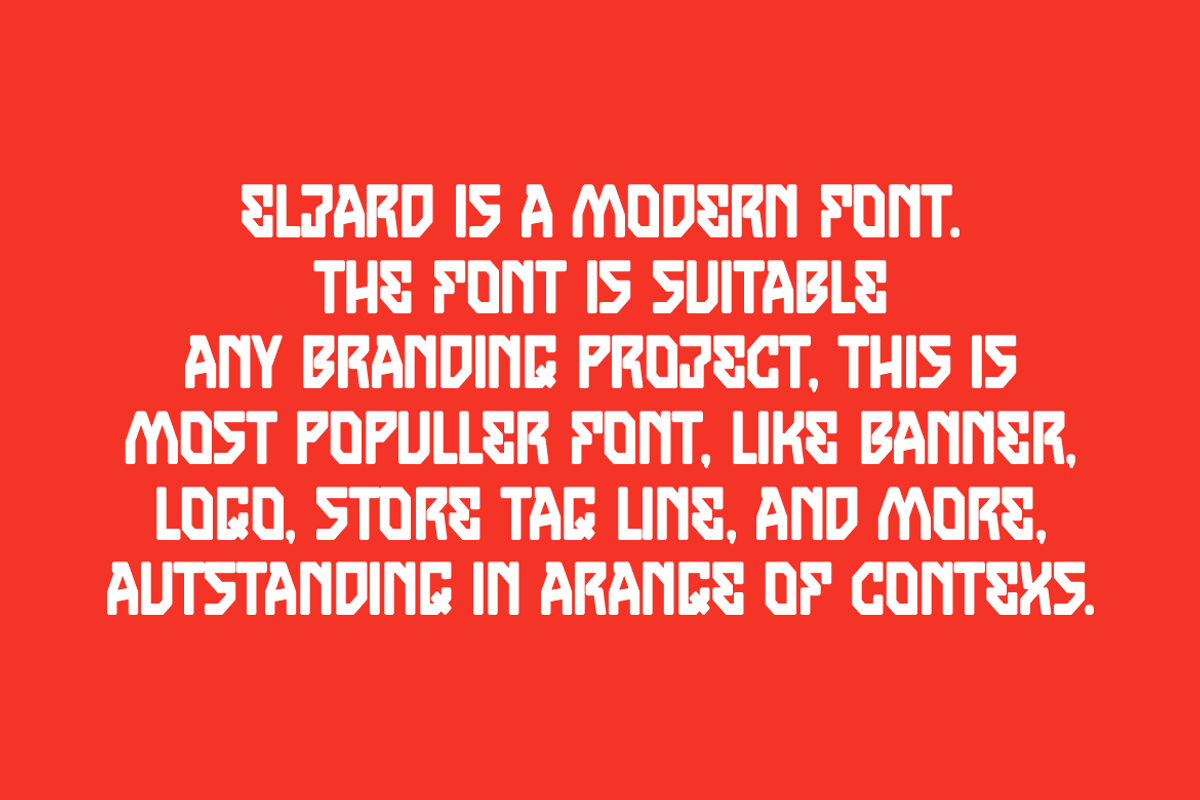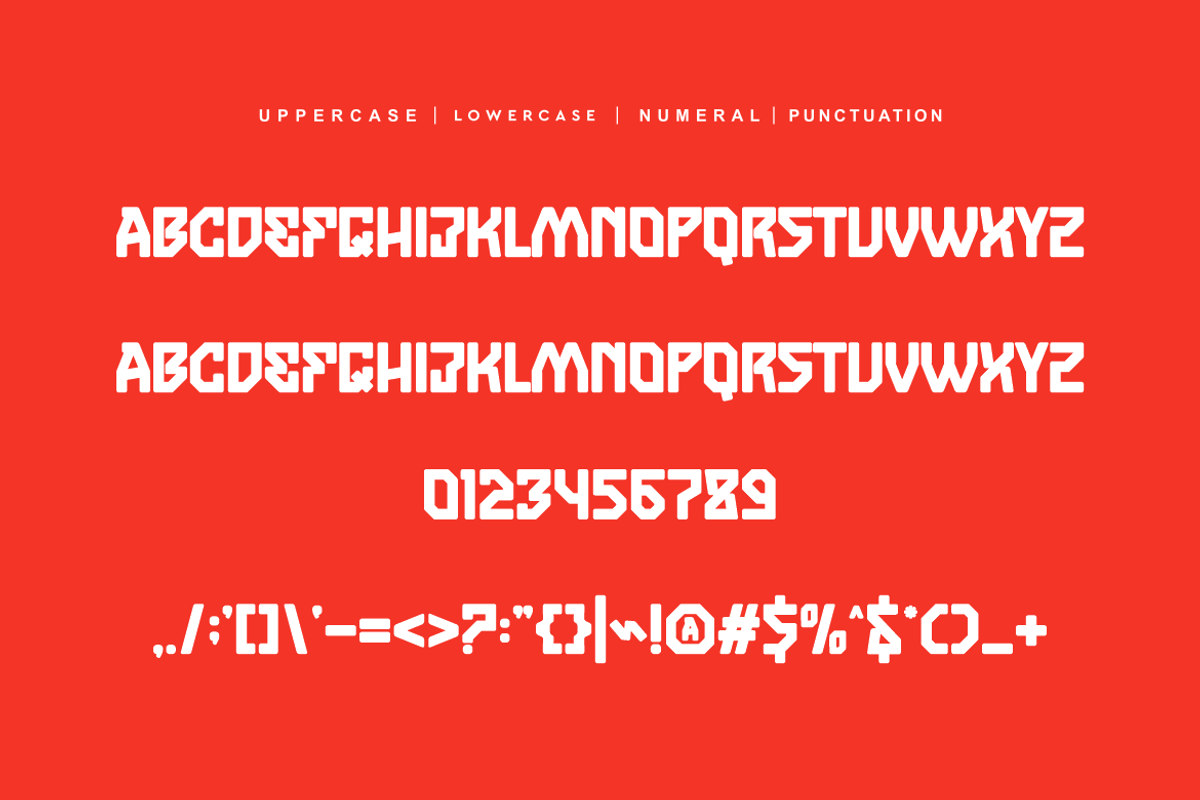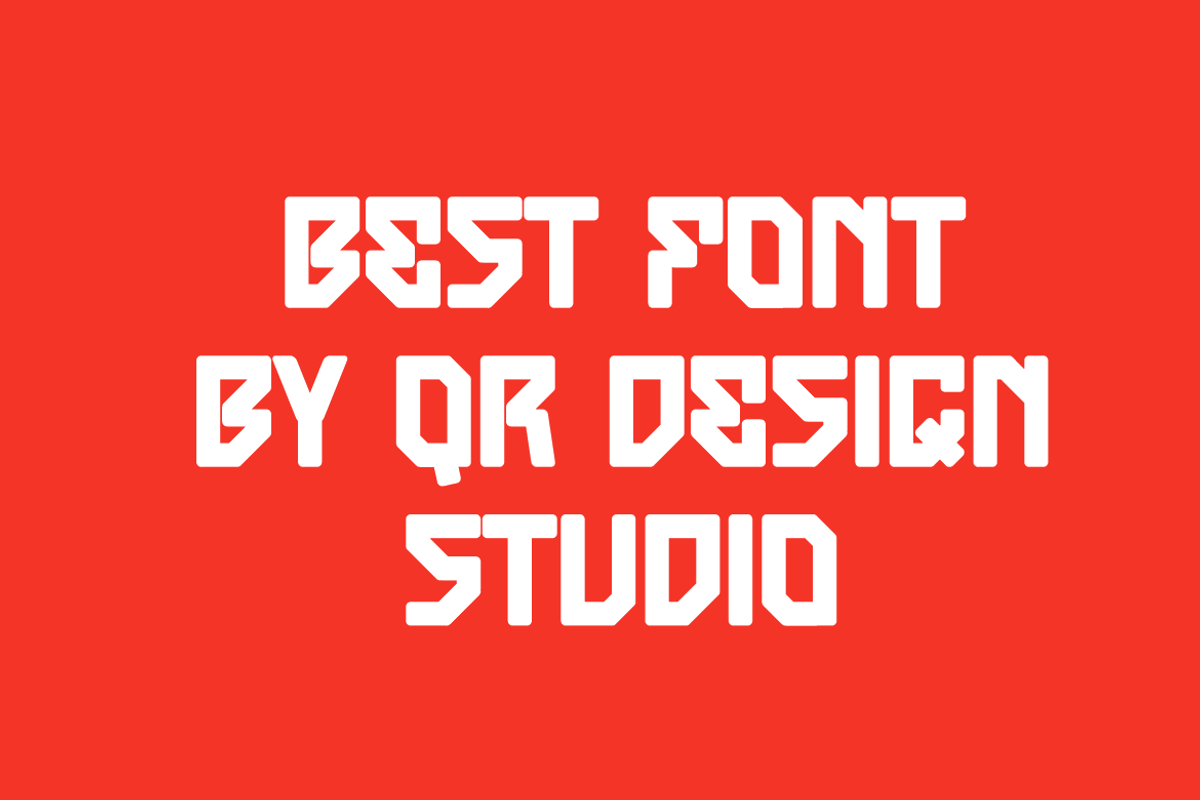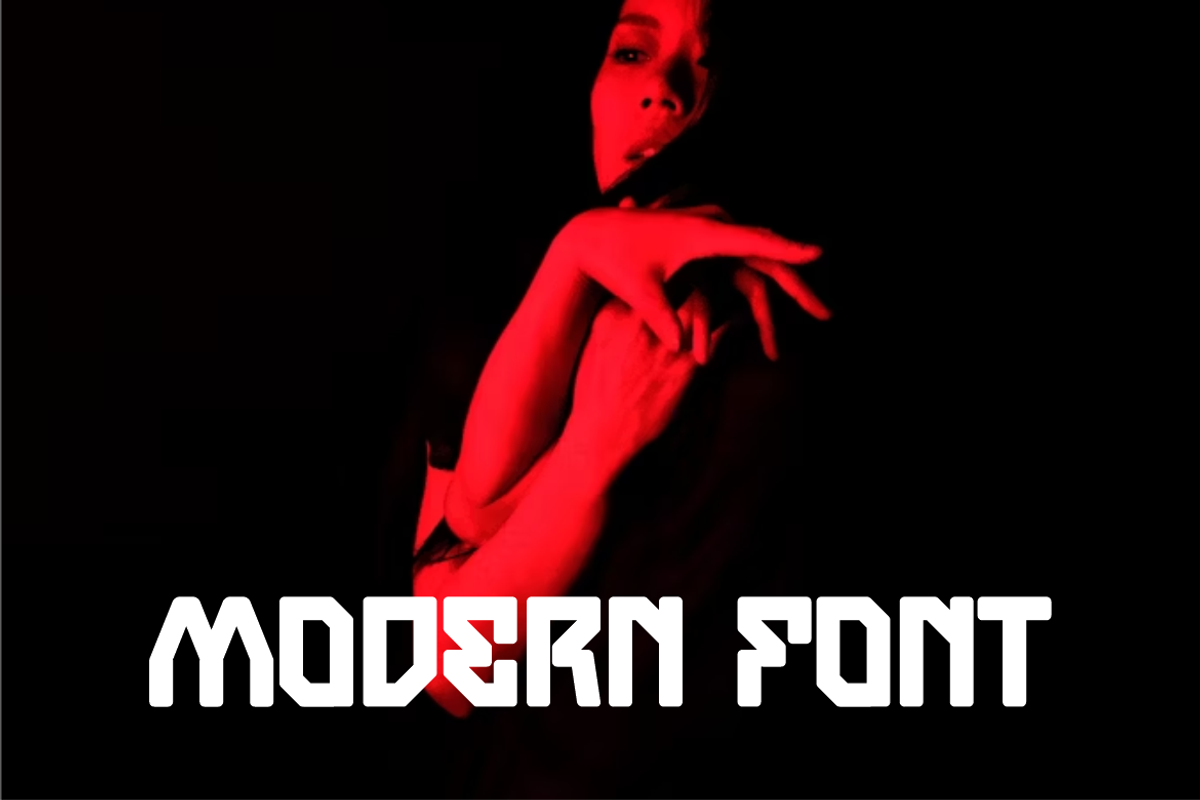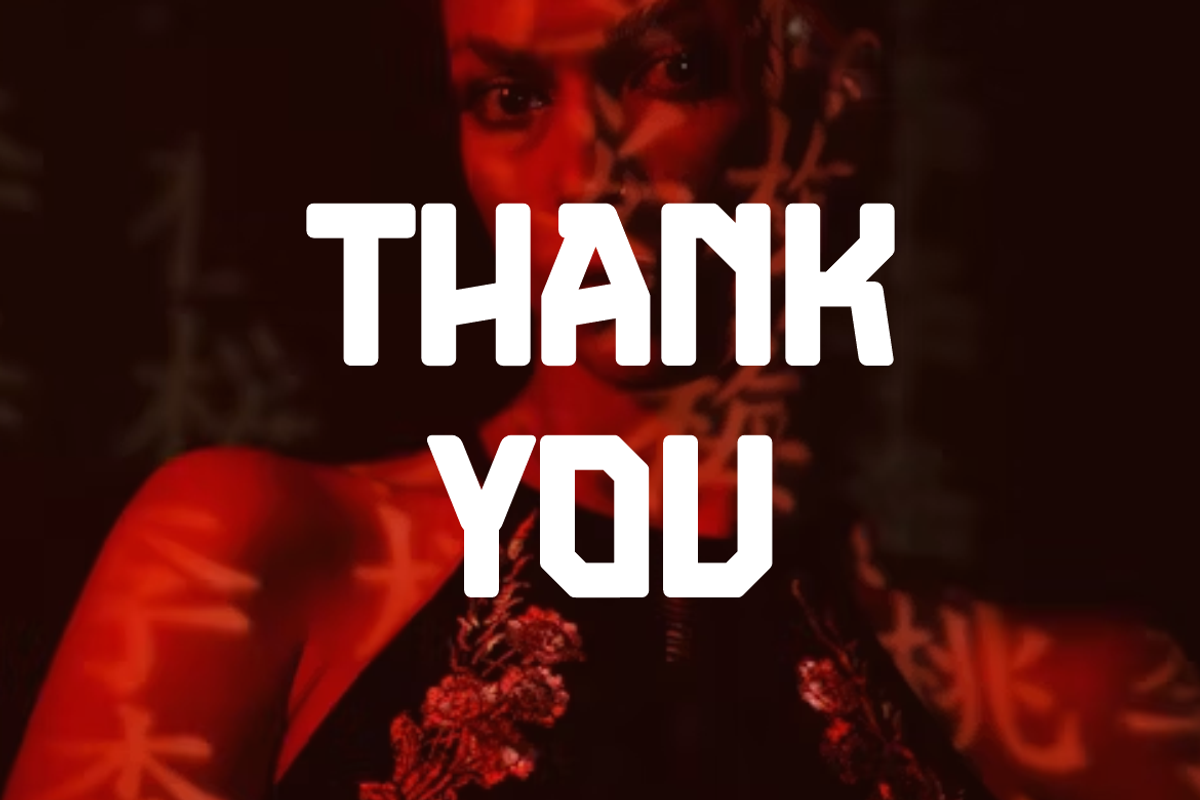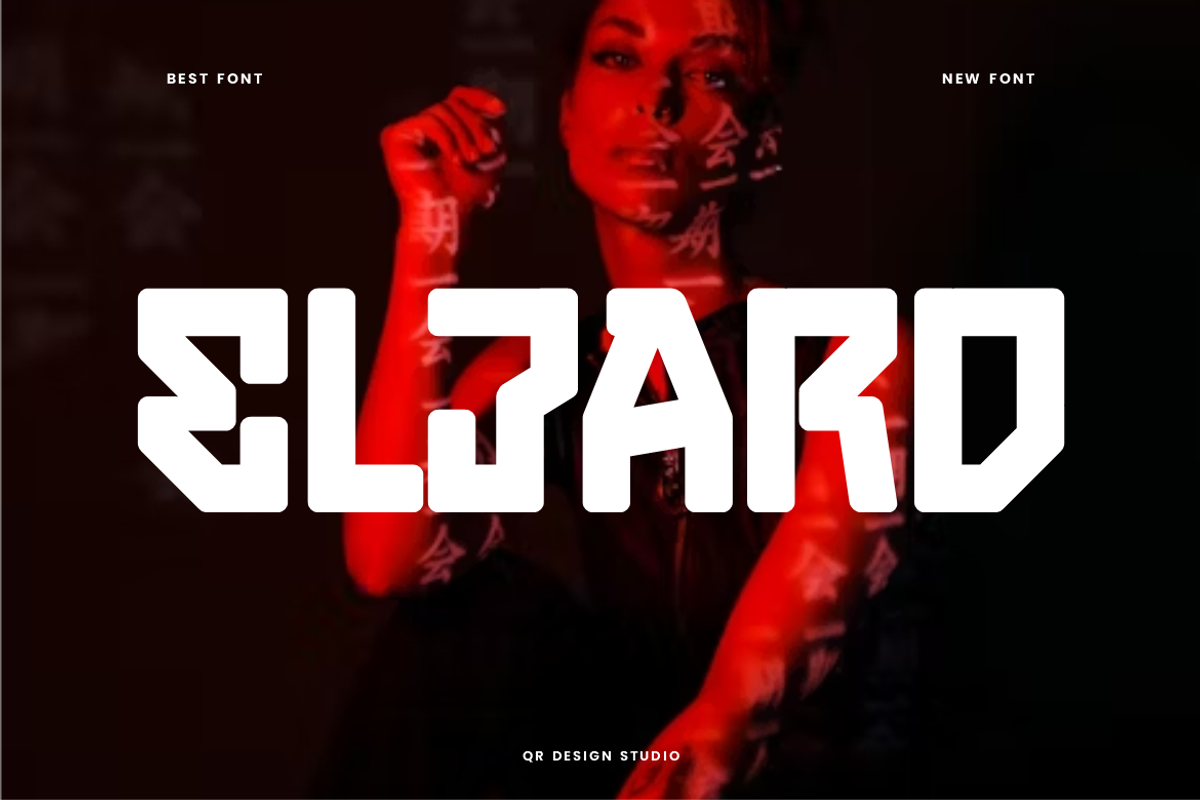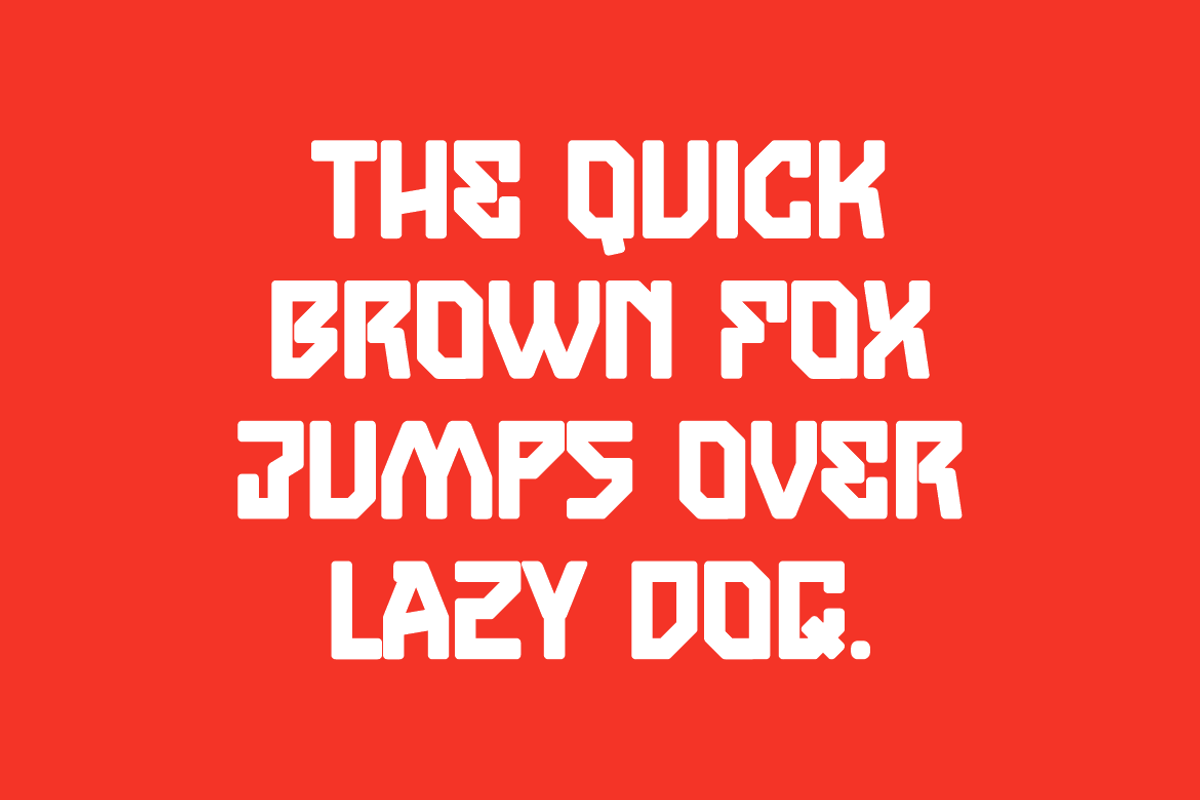
Eljard - Round Font
Eljard Font is a bold and authentic display font. The font is suitable for any branding project like poster, logo, sport, and many more. Outstanding in a wide range of contexts.